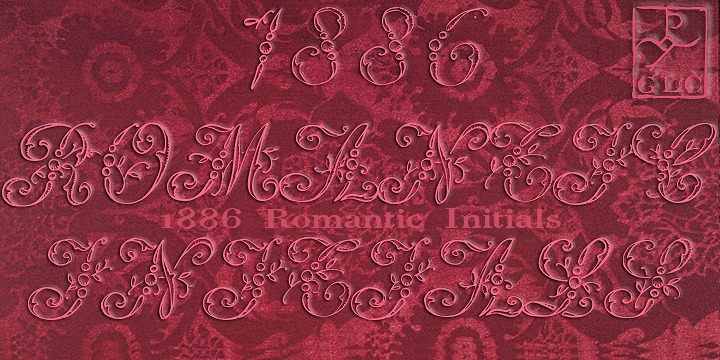
• 1886 Romantic Initials
This family of decorated initial letters was inspired from a French catalogue dedicated to engravers, embroiders and jewelers. unfortunately, we don't know the name of the illustrator, no more than the publisher, because a large part of the pages seems to have been lost or have been damaging, so, we have had to redrawn a few of figures. The font is containing standard Latin capitals without diacritics, identically repeated in lower case keys, and numerals.